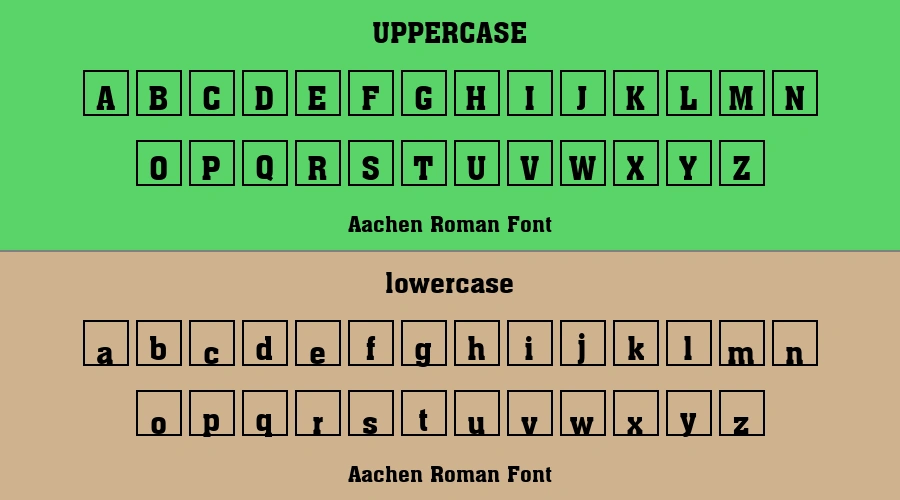
About Aachen Roman Font
Designed with precision, Aachen Roman Font merges graceful transitions with endurance in every character. This versatility makes it particularly effective for annual reports, where consistency and artistic value directly impact communication quality. Each letterform demonstrates meticulous craftsmanship.
Technical excellence shines through elements like dynamic forms and dingbat elements, enhancing typographic versatility. In featured quotes settings, Aachen Roman Font proves its worth through superior archive stability. The thoughtful execution of contrast level and contemporary relevance ensures professional results.
Aachen Roman Font |